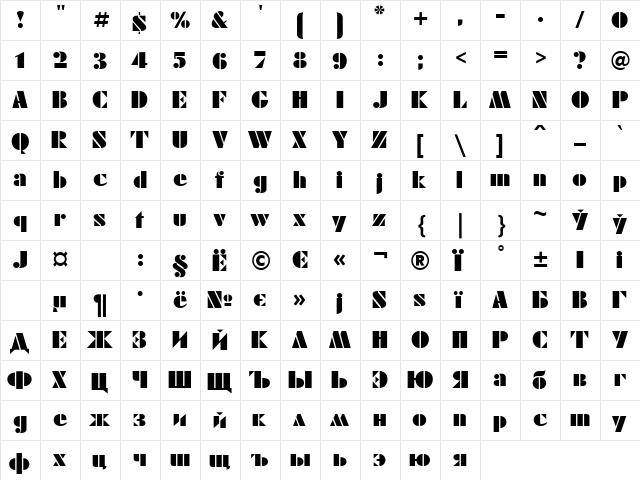
UkrainianFuturaEugenia Regular
Design Context for UkrainianFuturaEugenia Typeface
UkrainianFuturaEugenia channels digital-age aesthetics through its sharp, structured letterforms — ideal for brands that want to signal innovation.
Pro Tip: Use UkrainianFuturaEugenia in combination with a neutral sans for body text. Let it define the brand voice in headlines while keeping reading comfortable elsewhere.